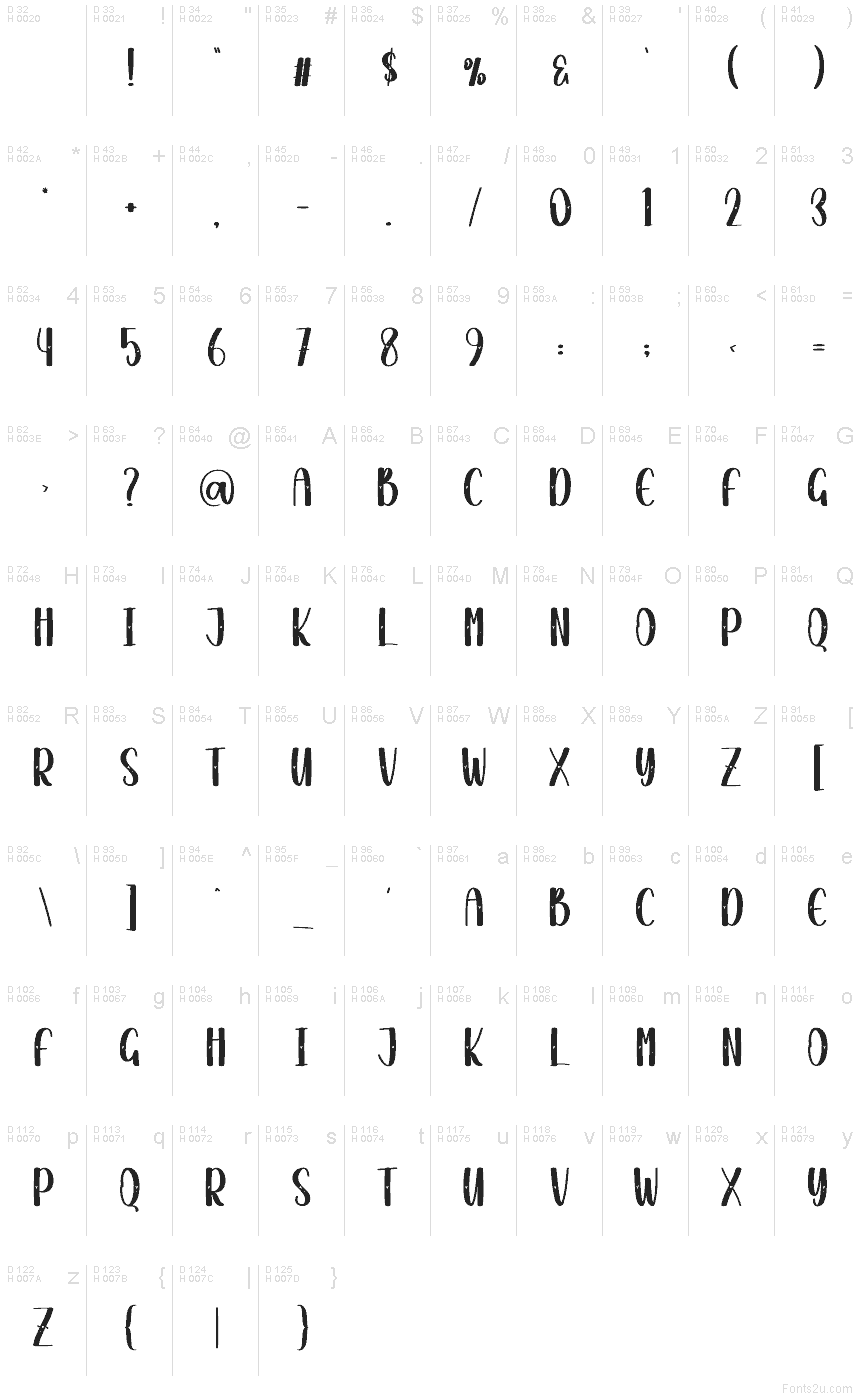
Wintering
Wintering font by Andi Moz is a decorative typeface with a condensed width. Its whimsical aesthetic comes from retro influences which add an authentic charm to its visuals. Wintering’s delicate details are another standout feature that will imprint contemporary designs with a distinct visual presence.
Free for use, this creative display font is great for invitations, posters, and book covers. Seasonal projects such as valentines or holiday decorations can also hugely benefit from the classy handwriting style of this fun font. Other possible applications include branding, advertisements, banners, social media posts, and product packaging.